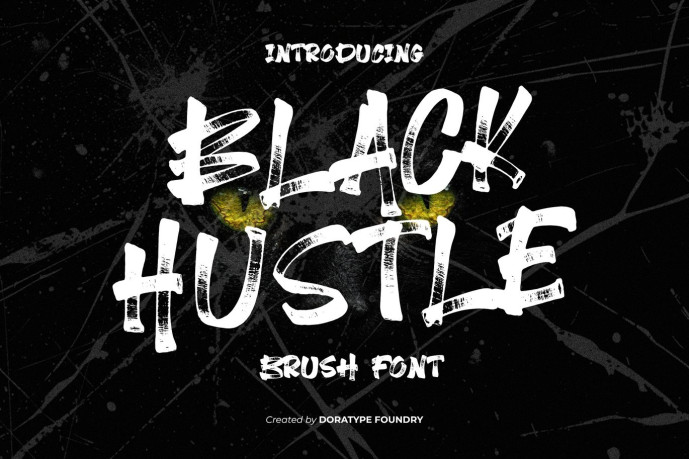
Black Hustle is a brush-style display font that exudes a strong, expressive, and energetic character. Each stroke is designed to mimic natural brushwork with an authentic, rough texture, creating a bold, wild, and artistic impression. The intentionally asymmetrical letterforms lend a dynamic, handmade feel, allowing the font to command attention across a wide range of design compositions.